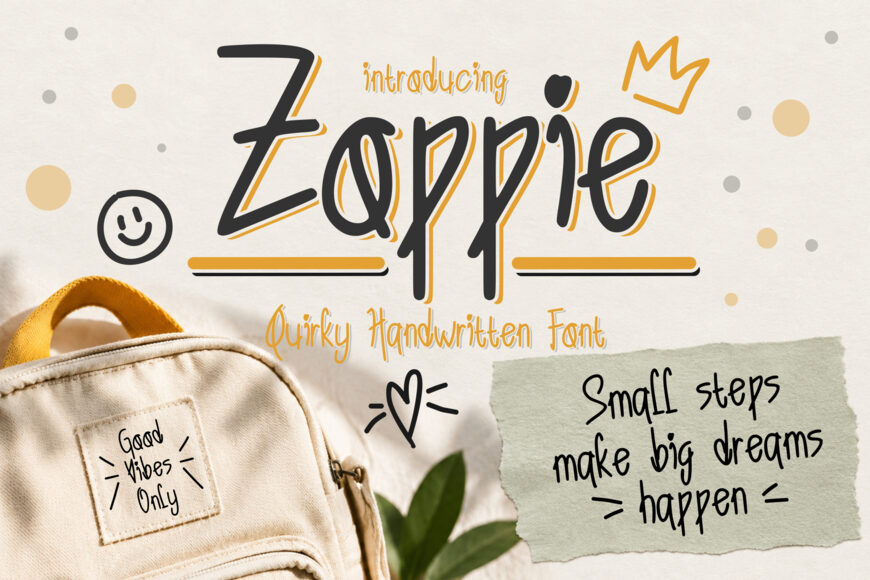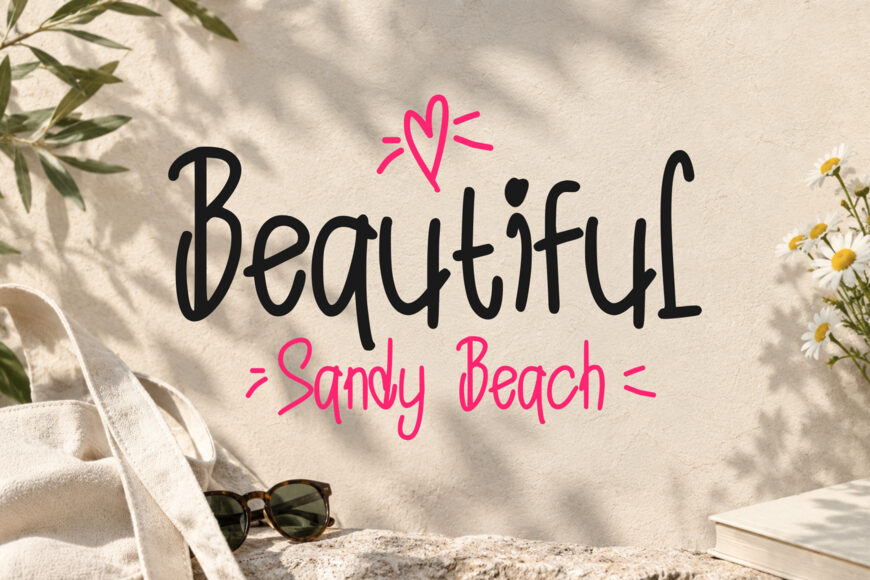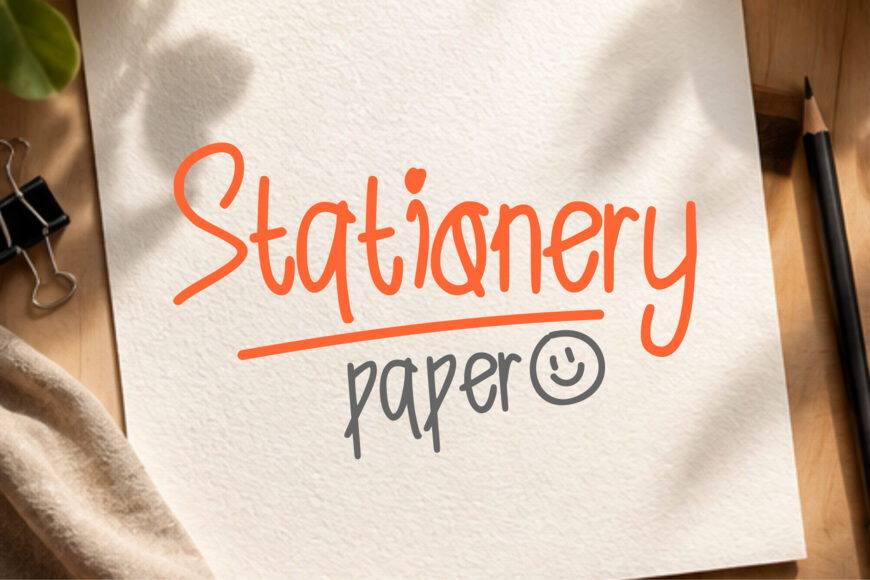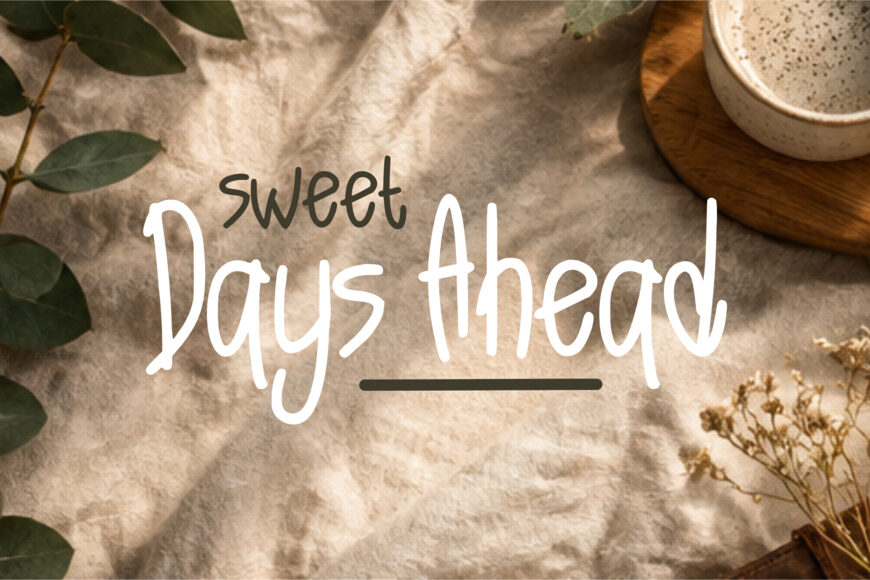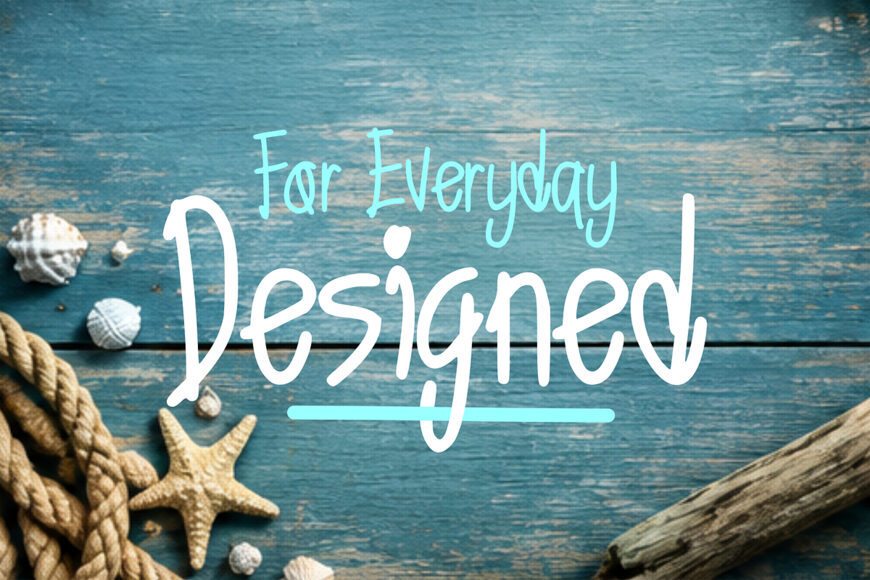
Zoppie is a playful handwritten display font that brings a youthful, cheerful, and spontaneous feel to creative projects. Its quirky letterforms, organic strokes, and charming hand-drawn style add warmth and personality to every design.
Ideal for children’s products, school projects, posters, greeting cards, stickers, packaging, social media graphics, branding, invitations, apparel, and lifestyle designs, Zoppie creates a friendly, creative atmosphere. Its naturally imperfect lettering delivers an authentic handmade look while remaining distinctive and easy to read.